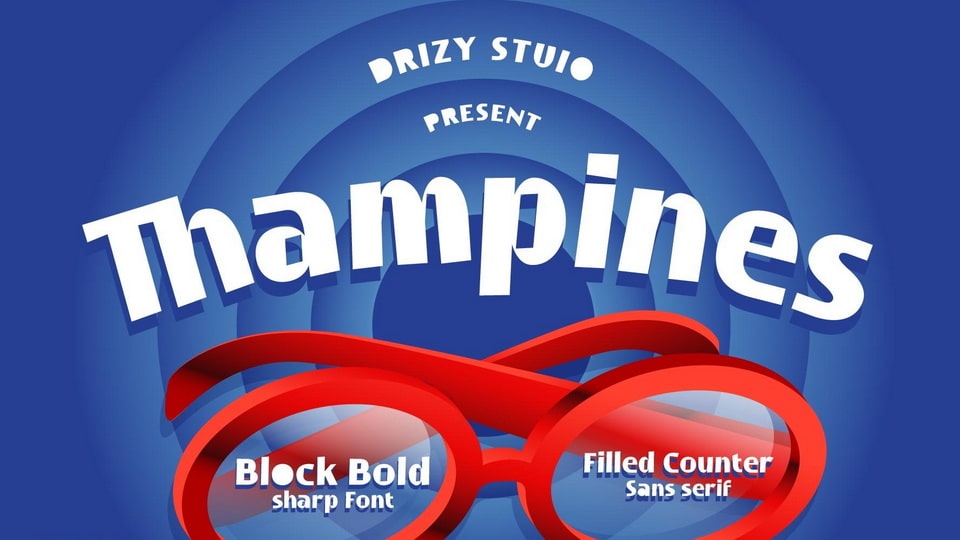
Download Thampines font, a bold and sharp block display typeface. Thampines is perfect for projects that need strong and neat typography. Use it for posters, book covers, magazines, banners, or more.
Designer: Drizy Studio